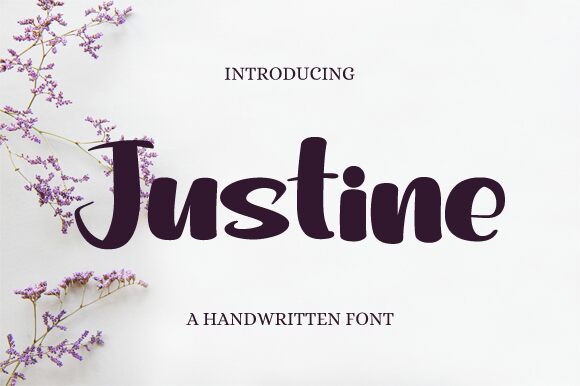
Justine
Justine, a smooth and bold brush-inspired font created by Nirmala Creative, exudes a captivating blend of elegance and confidence. Its distinctive marker-like strokes lend a touch of artistry, while the bold weight imbues the design with a strong, impactful presence. This font's versatility shines through its ability to evoke a range of moods, from the refined and sophisticated to the dynamic and expressive.
Justine's versatility makes it a compelling choice for a diverse array of design applications, from eye-catching headlines and captivating editorial pieces to dynamic branding and packaging. Its bold, assertive nature lends itself well to attention-grabbing titles and impactful messaging, while its smooth, brushed aesthetic allows for seamless integration into more refined, elegant design compositions.